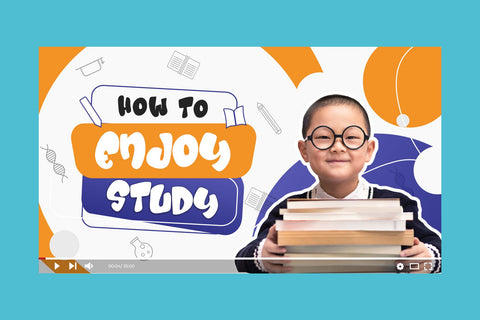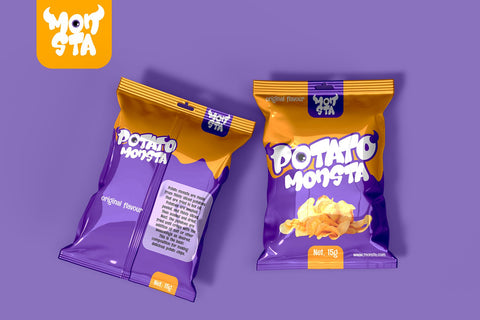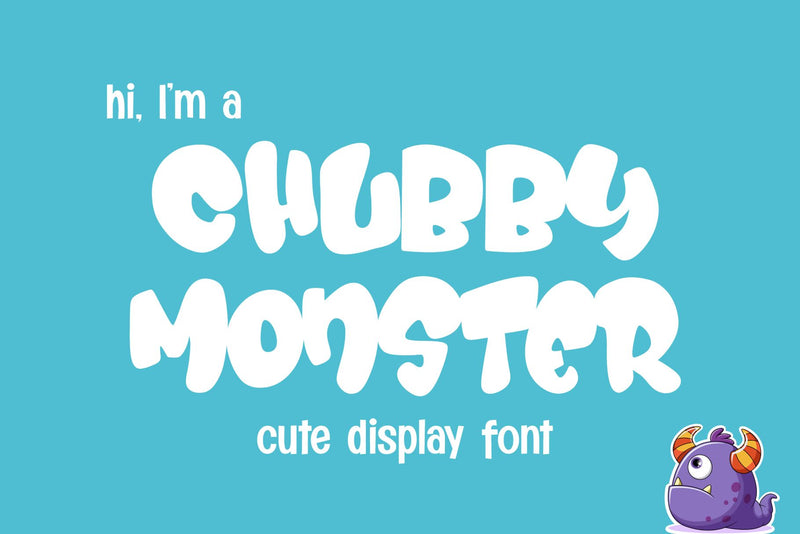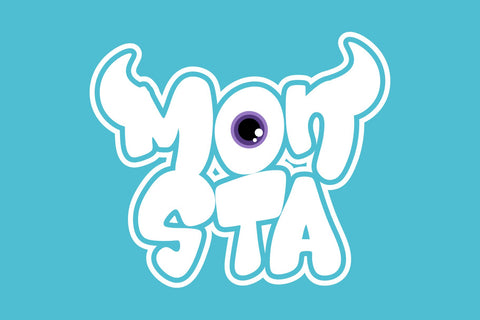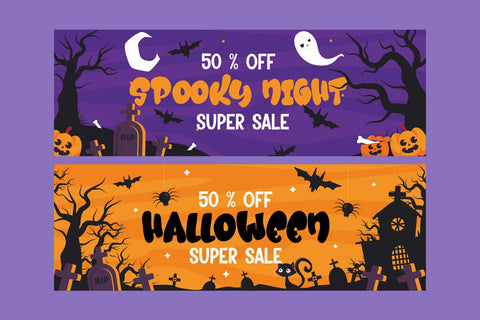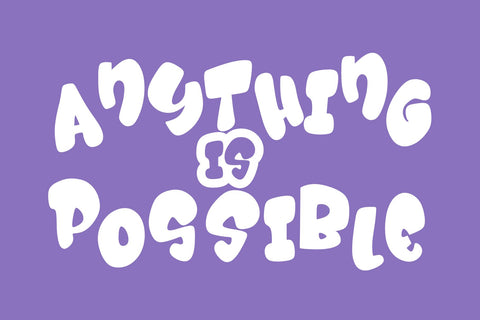
Chubby Monster - Cute Display Font
"Chubby Monster" is a display font with chubby and bold characters. Fonts like this are often used in various designs that aim to convey a cute or adorable feel. The chubby and bold letterforms give a cheerful and inviting appearance, making it suitable for a wide range of design projects that want to emphasize a sense of playfulness, such as children's designs, toy products, or cute decorations. If you have further questions about using this font or need assistance in a specific design context, please feel free to ask!